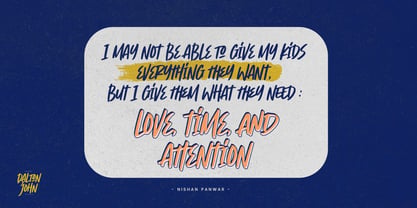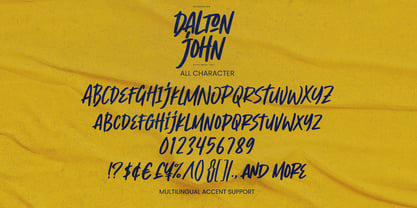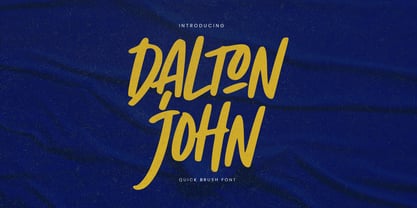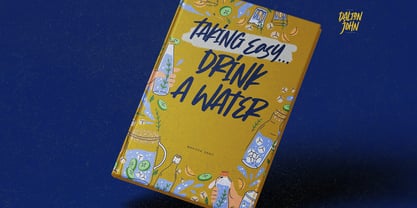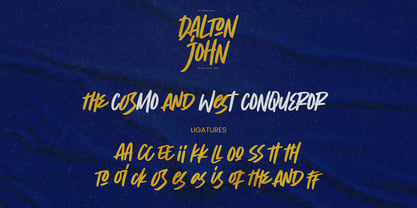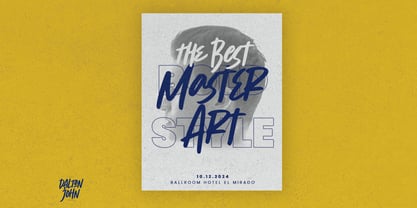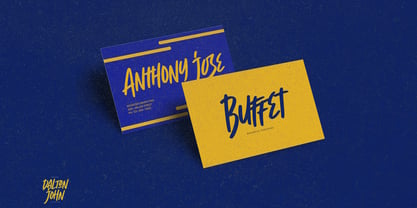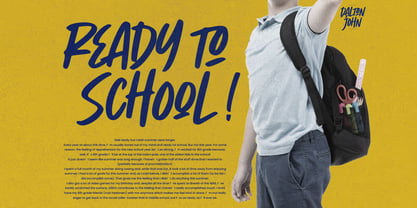
Dalton John
von Gassstype
Die Schriftfamilie Dalton John wurde von Abdul Malik Wisnu entworfen und von Gassstype veröffentlicht. Dalton John enthält 1 Stile. Mehr über diese Familie
Introducing our new product, Font Dalton John This Is Quick Brush Font. This textured natural style boasts a classy appearance with clear lines and dramatic movement. Font Dalton John is perfect for your next creative project, including logos, printed quotes, invitations, cards, product packaging, headers, letterhead, posters, and more. This font is ideal for creative endeavors such as watermarks on photography and is perfect for logos and branding, invitations, advertisements, product designs, stationery, wedding designs, labels, product packaging, special events, or anything that requires a handwritten touch.
Designer: Abdul Malik Wisnu
Foundry: Gassstype